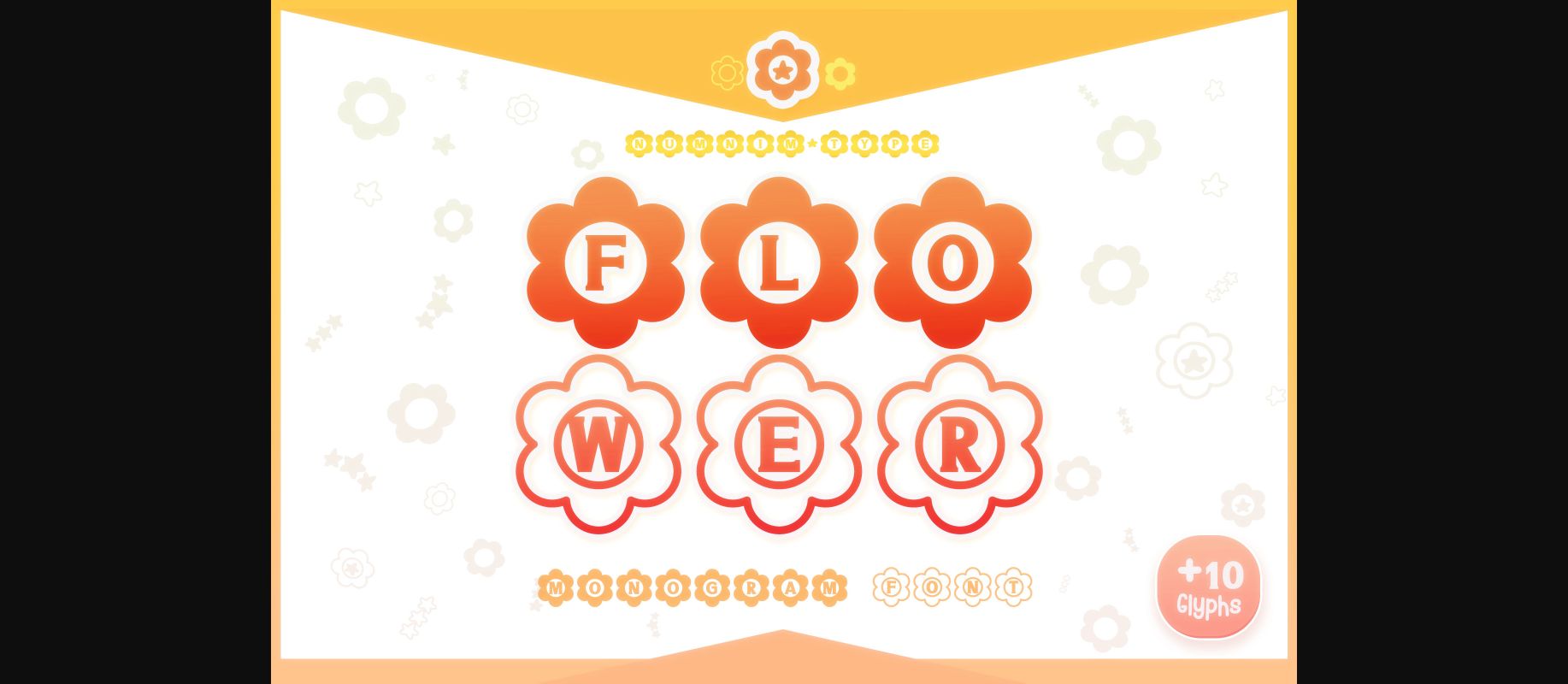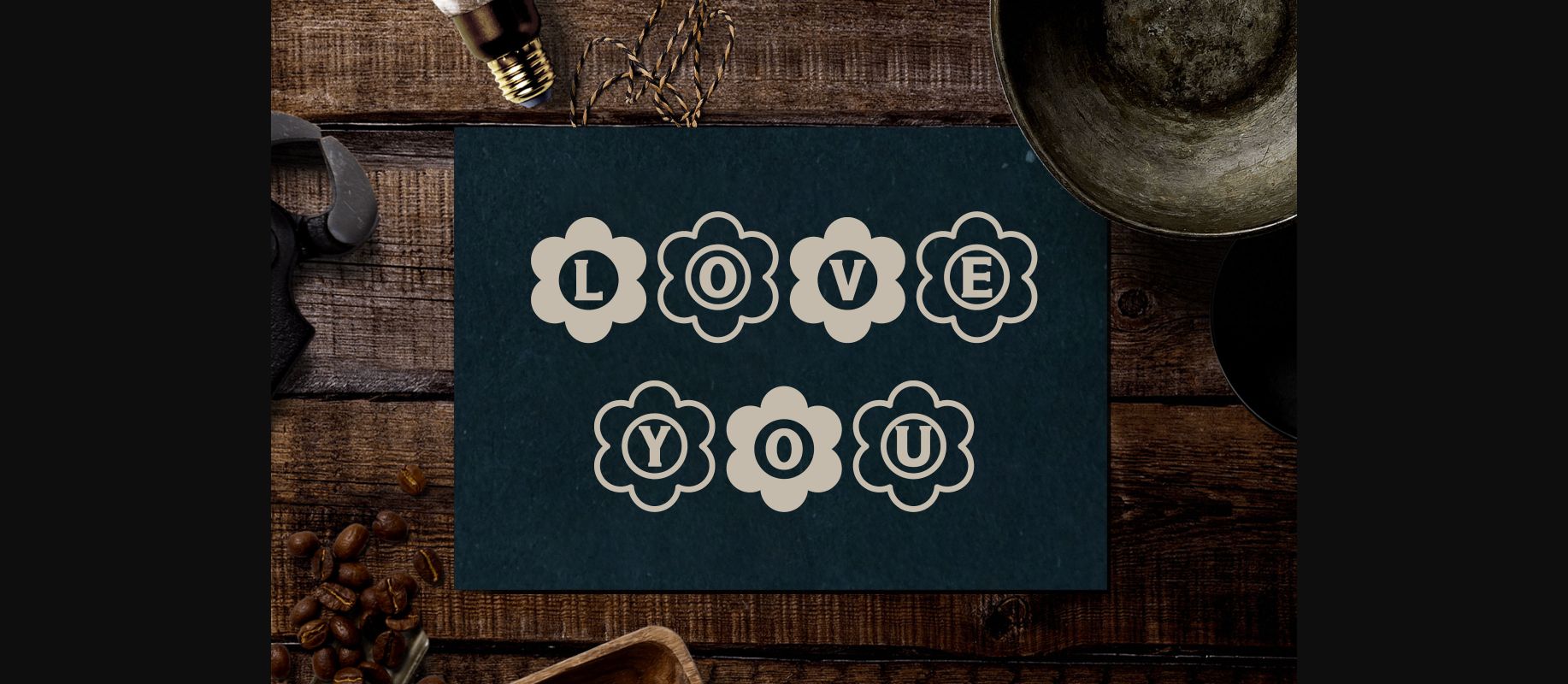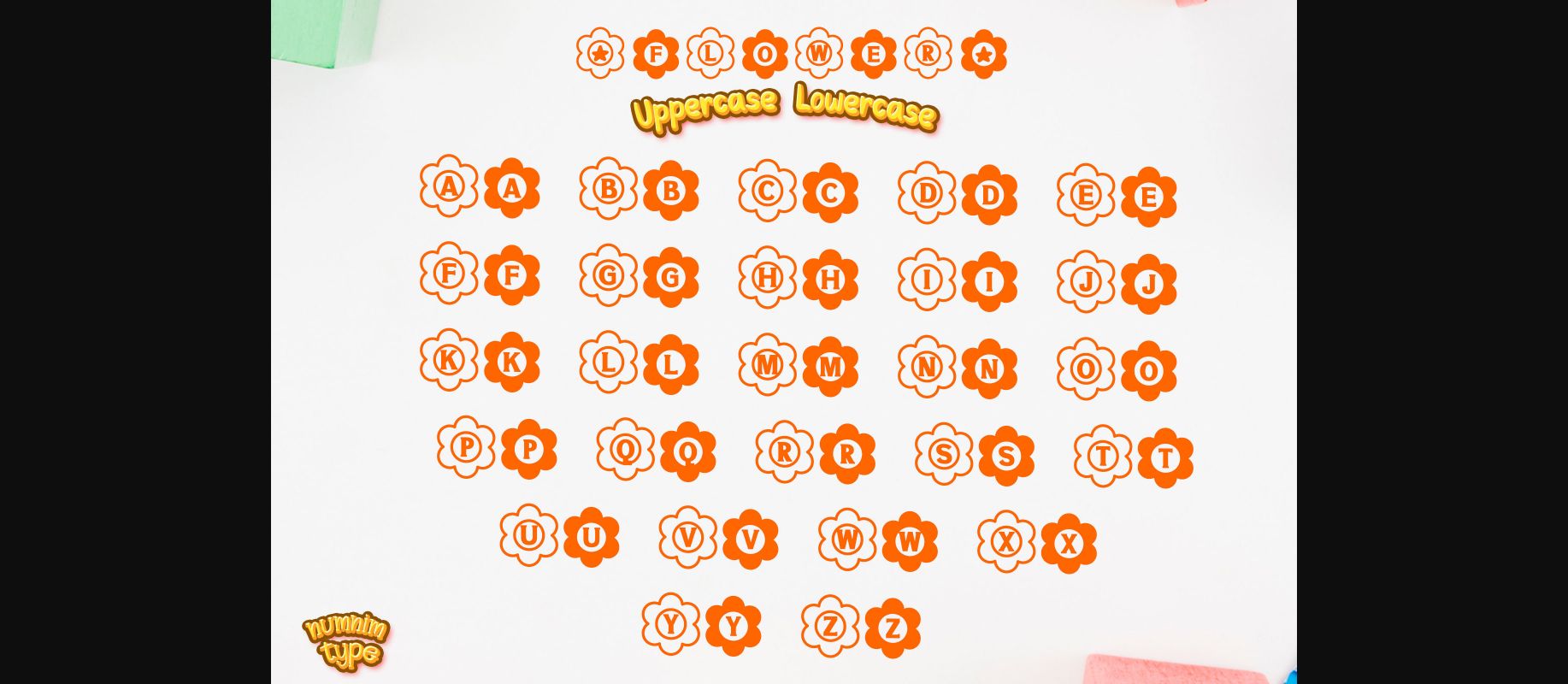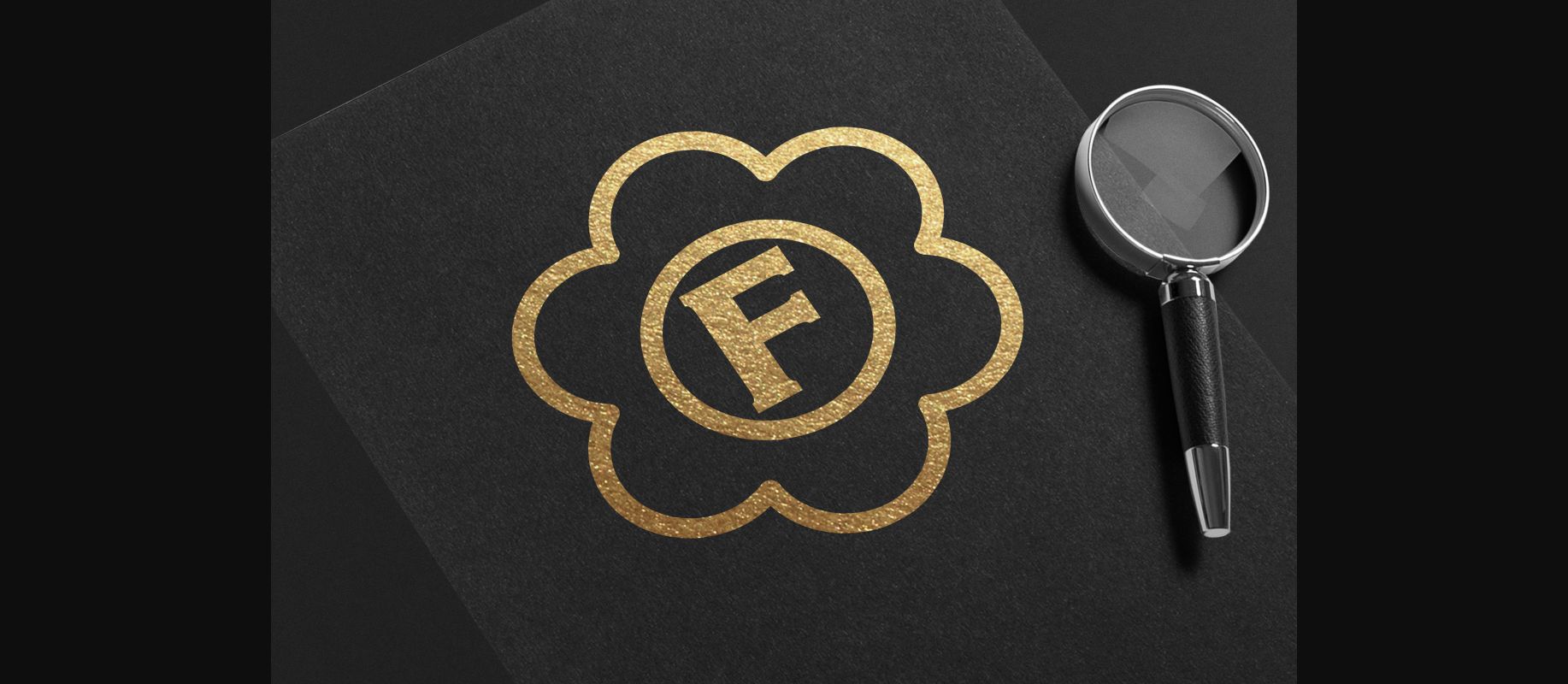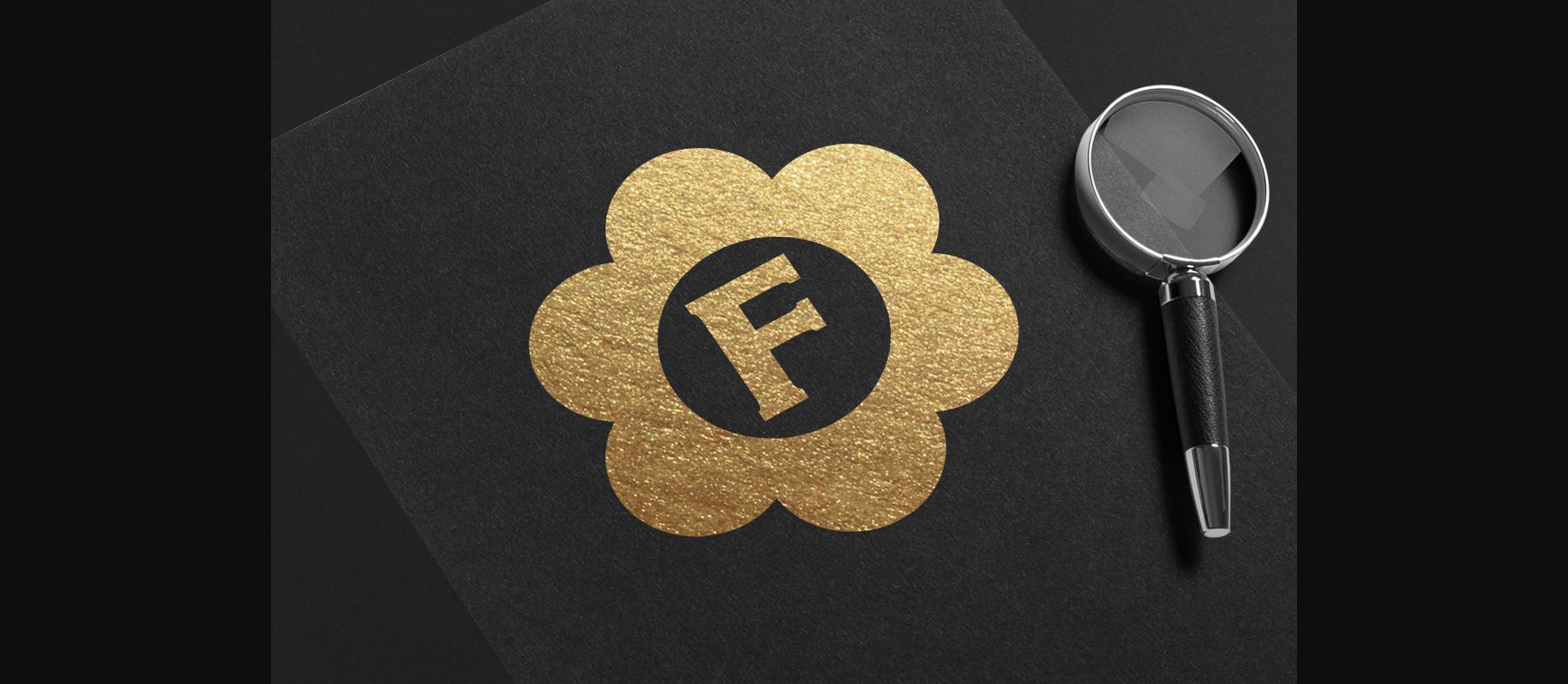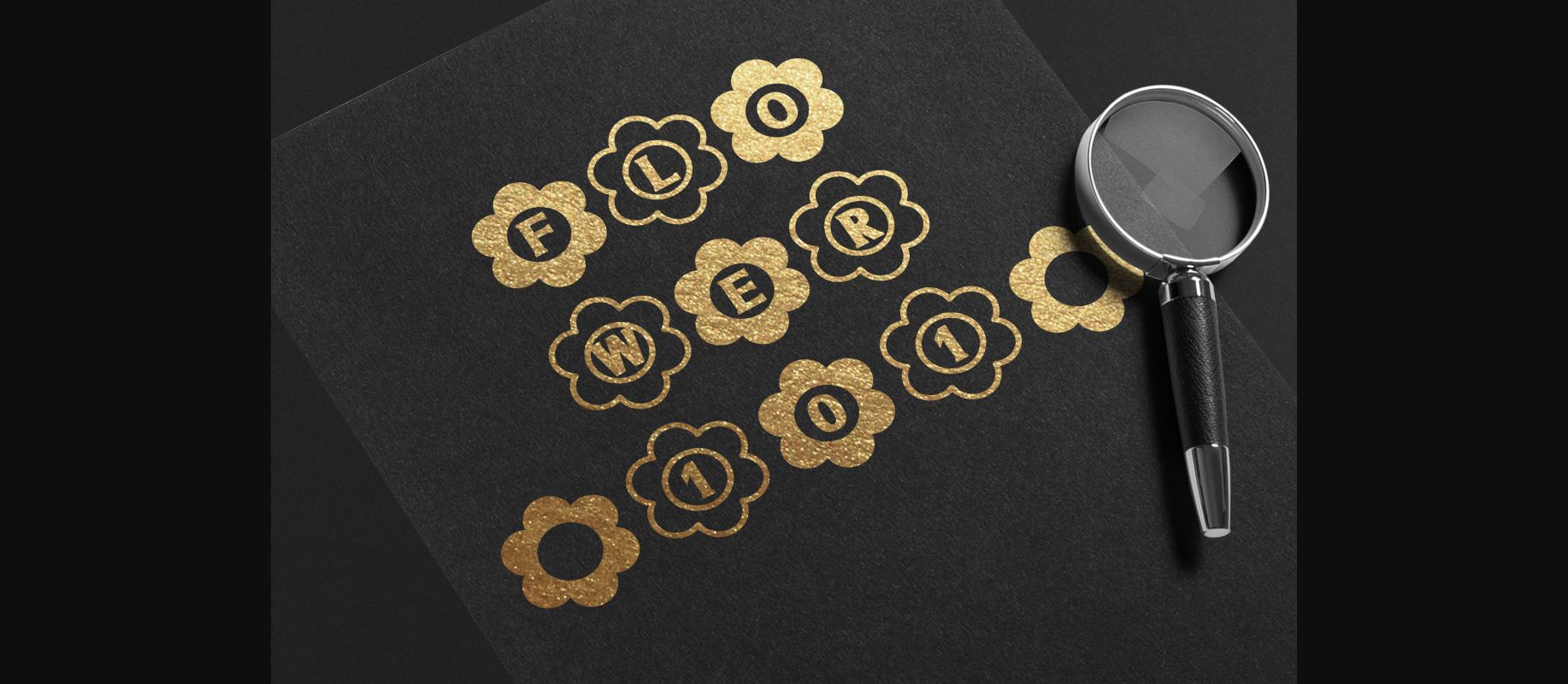
About Flower Monogram Font
Flower Monogram is a warm and festive decorative font. It is PUA encoded which means you can access all of the amazing glyphs and ligatures with ease!